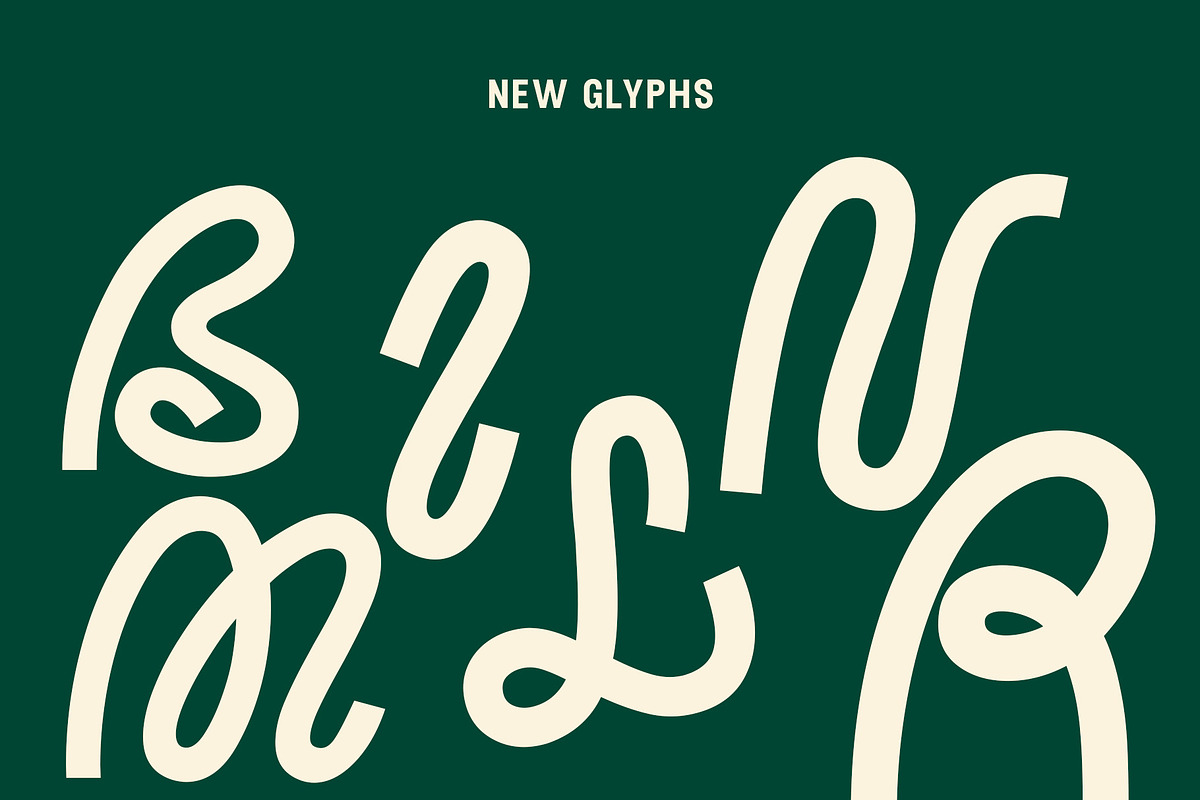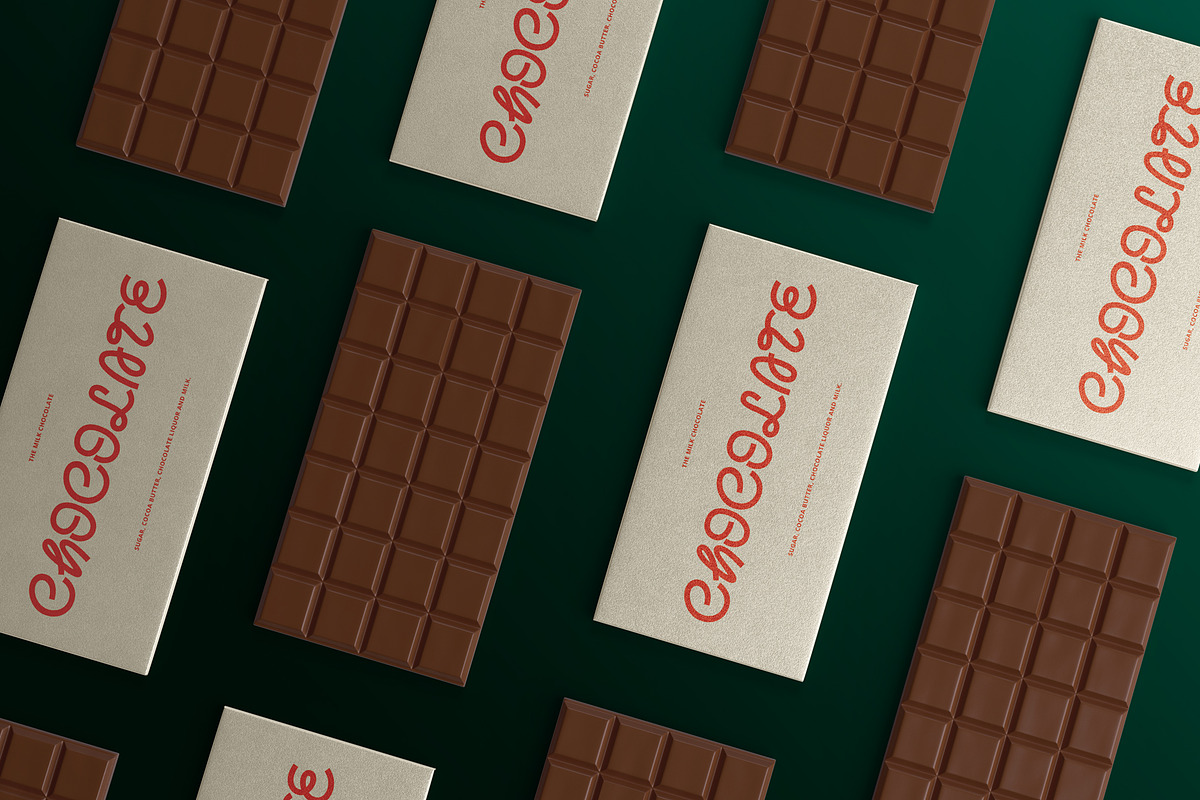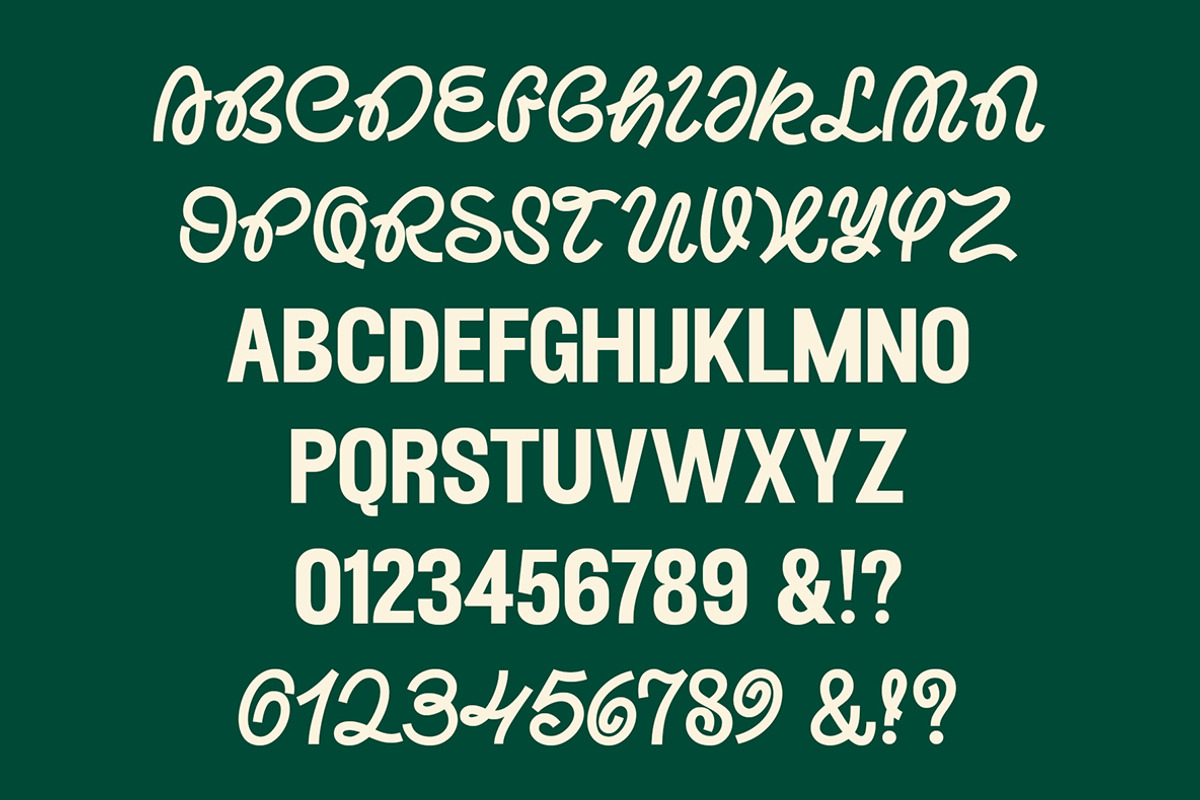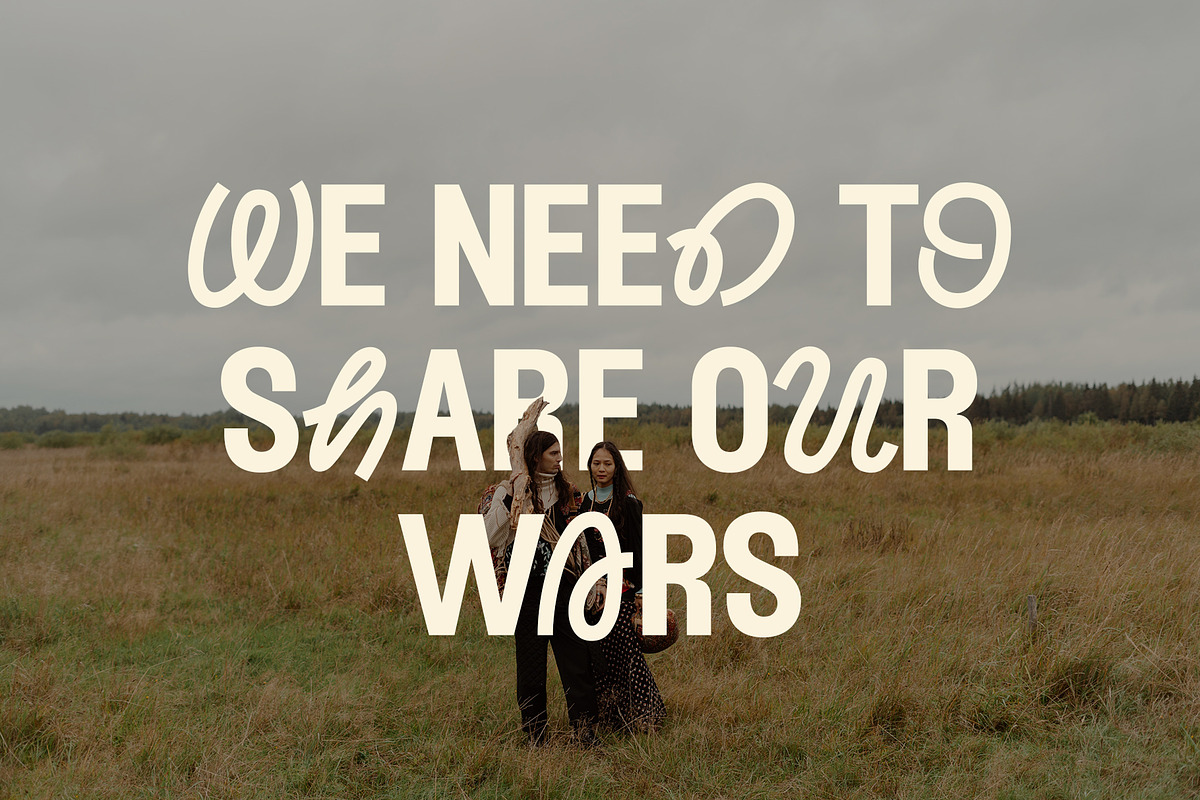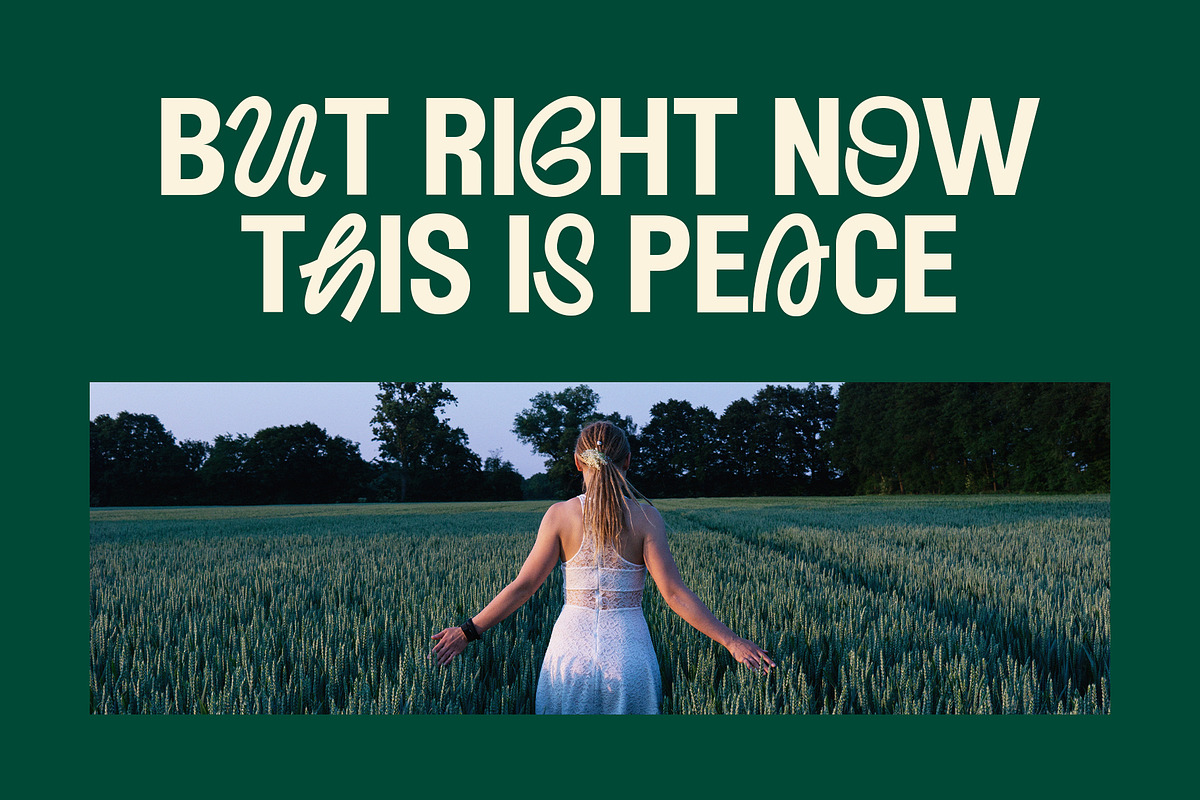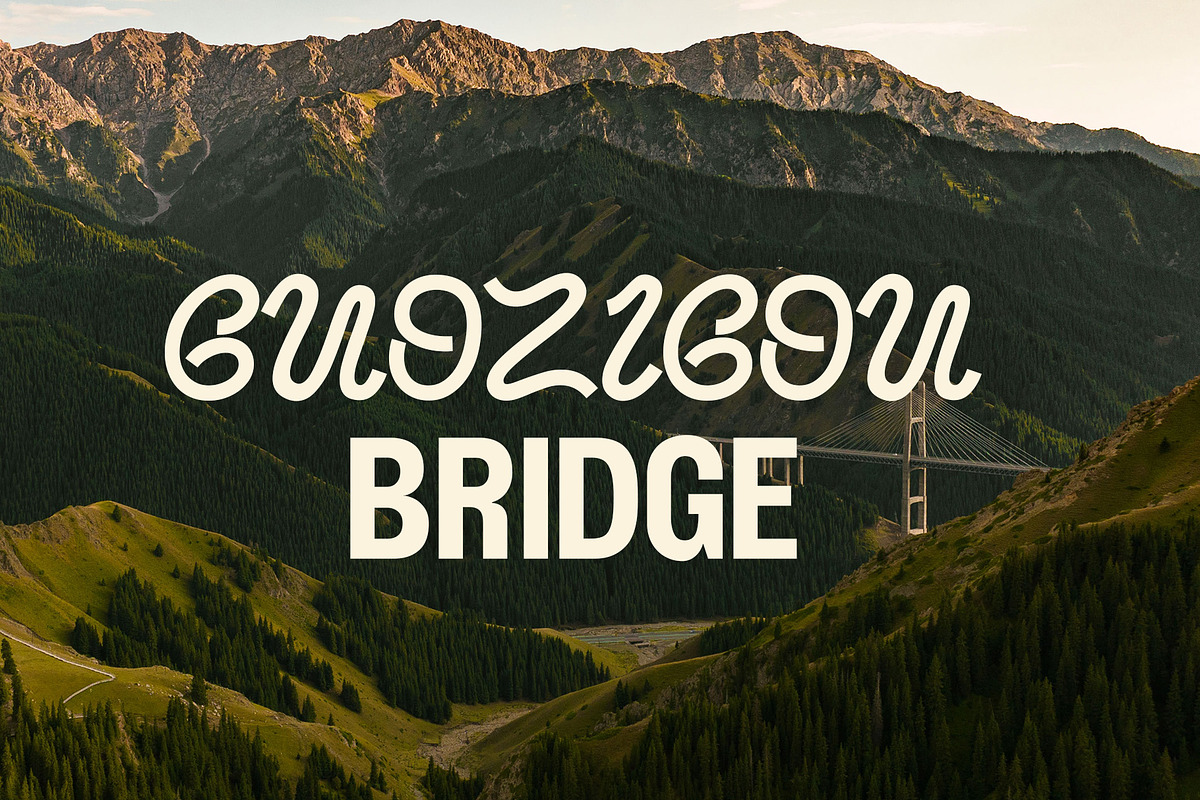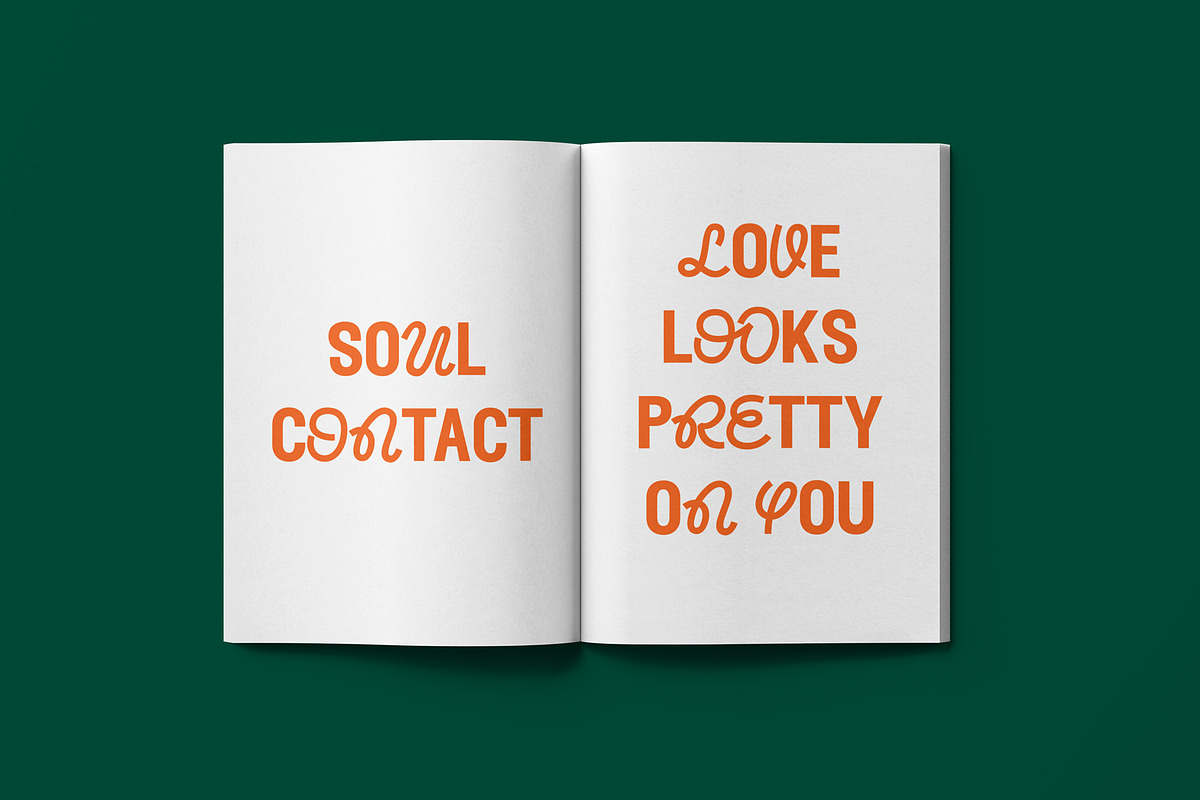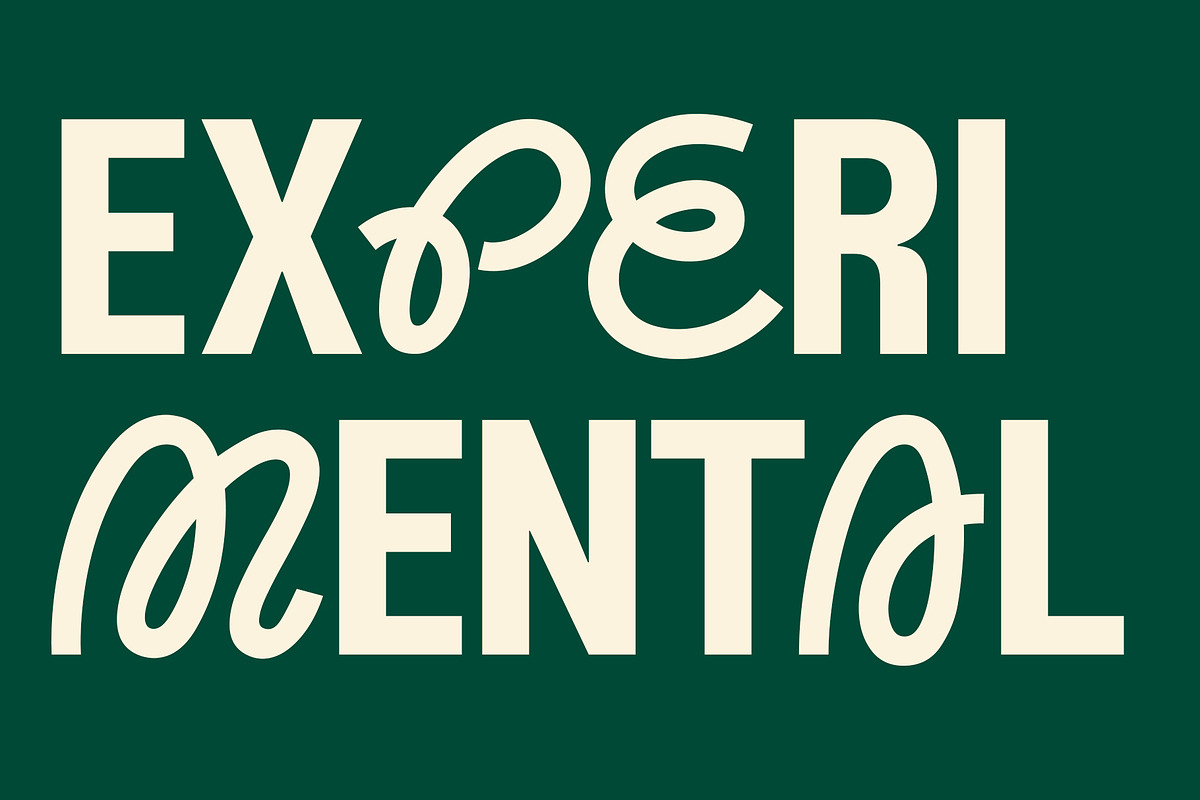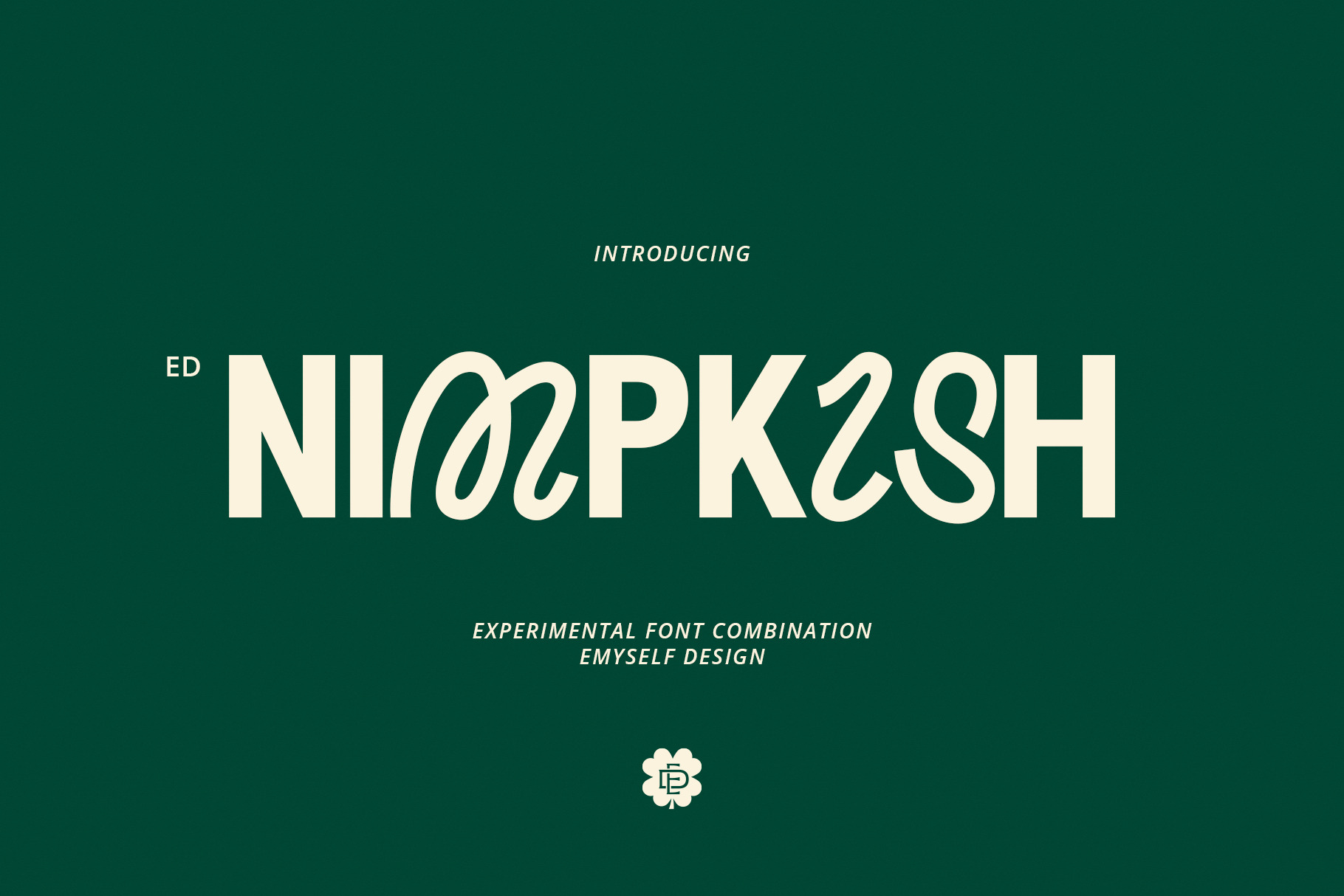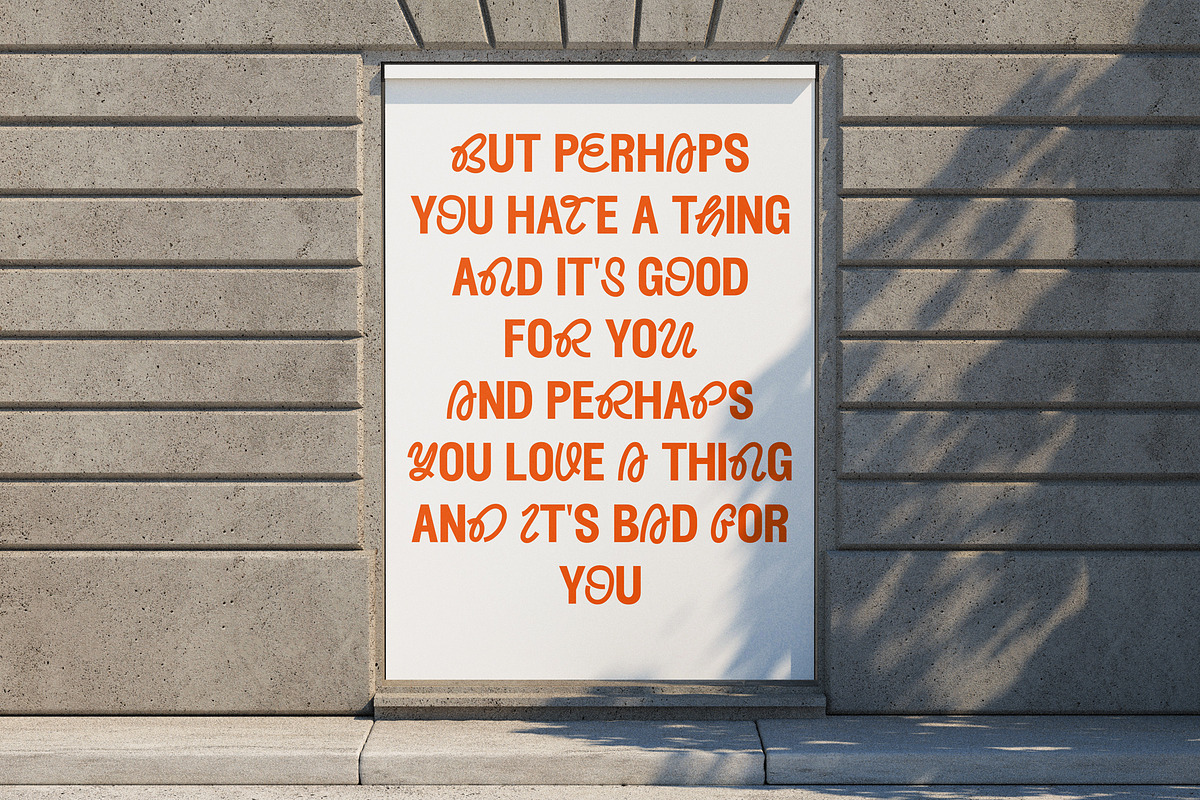
ED Nimpkish - Combination Typeface
ED Nimpkish is an experimental combination font. include 2 fonts that have a very different style and appearance, but make this font look unique.
This font equipped with several features such as alternative characters, ligatures, and multi-language support that makes it easier for you to design. This font is perfect for your design needs such as poster design, logo design, branding, social media design, book, magazine, etc.
- Total Glyph : 357
- Uppercase : Display
- Lowercase : Sans
- Punctuation and Marks
- stylistic set & Ligatures
Update : New glyphs & stylistic set